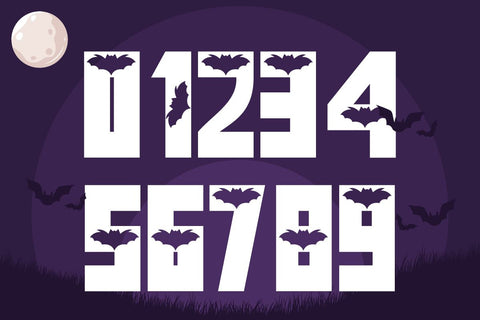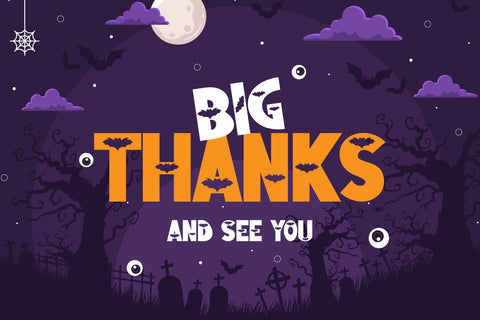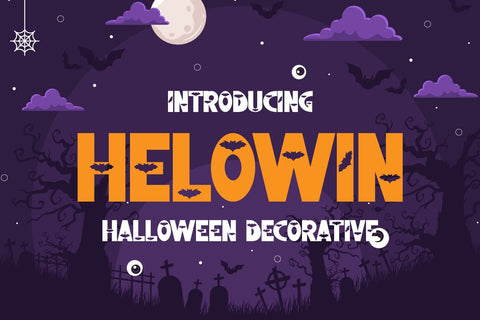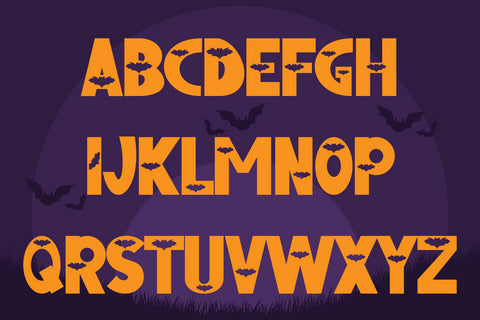
Helowin - Halloween Font
Helowin is a bold and very unique decorative font with a Halloween bat theme. It can be used for a variety of design ideas, especially those related to Halloween. This font is PUA encoded which means you can access all glyphs and sweeps easily.